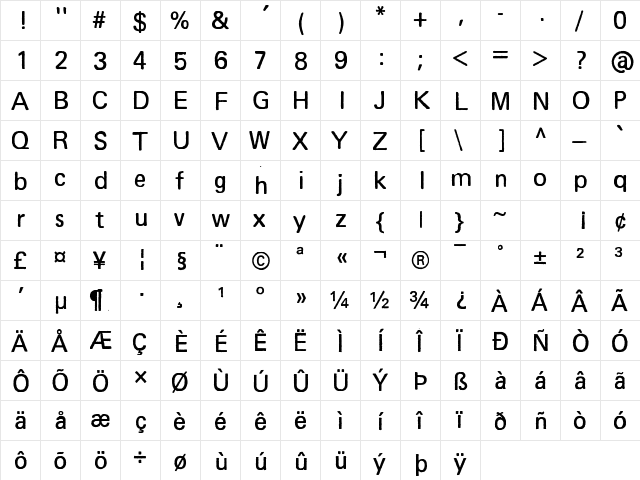
Univers Else Regular
Design Context for Univers Else Typeface
Univers Else offers clean, dependable letterforms without strong stylistic allegiance, making it a practical choice for designers who need flexibility.